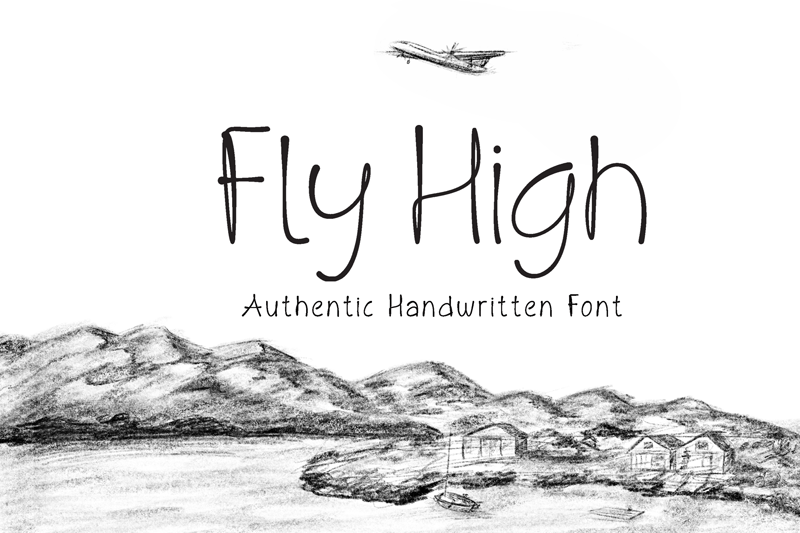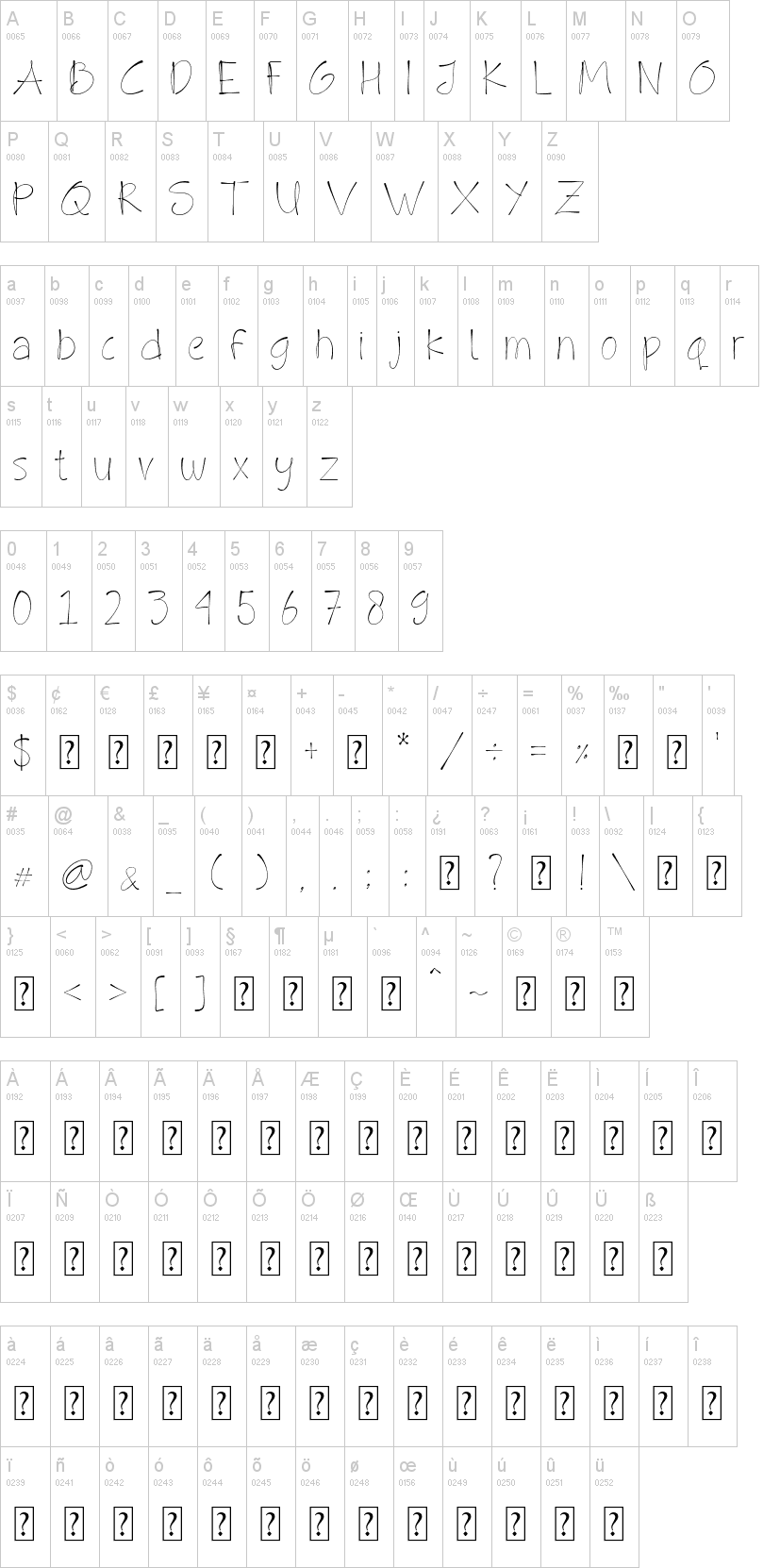
Note of the authorFly High is a Authentic handwritten font. it feels smooth like butter yet seamlessly fast paced writing style make it perfect to use for an invitation, logos, card, quotes, badges, labels, packaging design, blog or website headlines or simply use it in your next design project.
Fly High comes with upper and lowercase Basic Characters, Numbers, Marks and Punctuation. Diacritics are also available for Western and Central European languages.